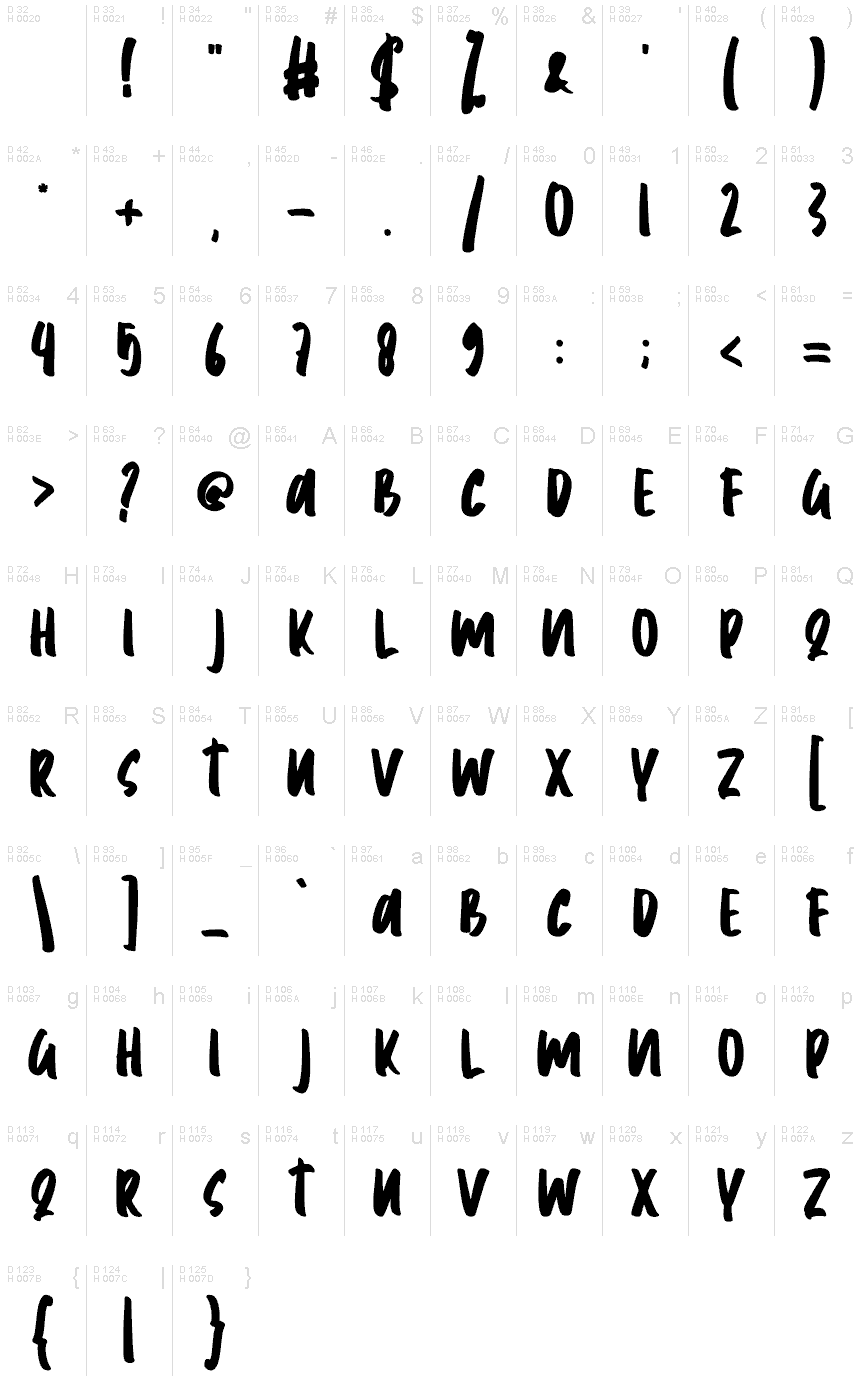
Zayboy
Zayboy font by Skiiller Studio is a condensed brush font whose expressive, contemporary, and assertive look makes it both legible and easily recognizable. It has a handcrafted feel that exudes a casual aesthetic that will make an impression on every reader. Compact with slight curvatures all over, it instantly delivers the message with style.